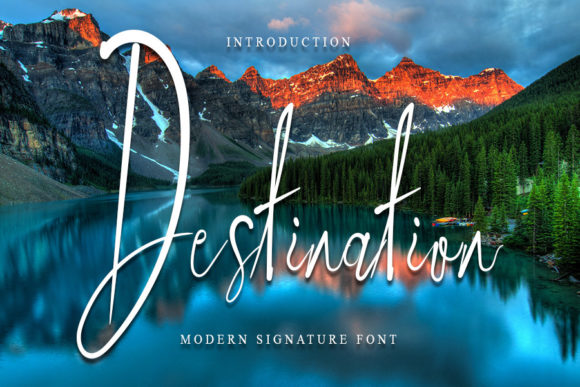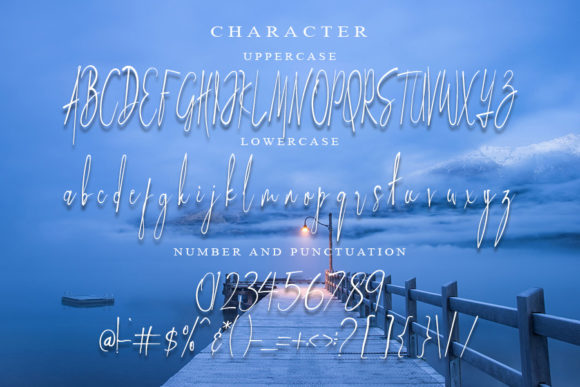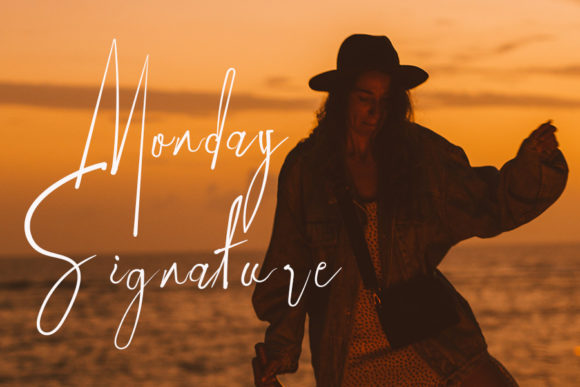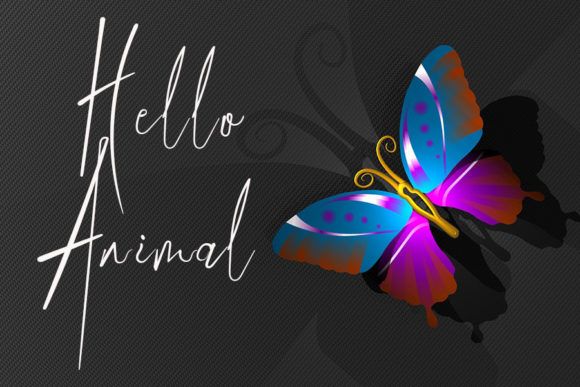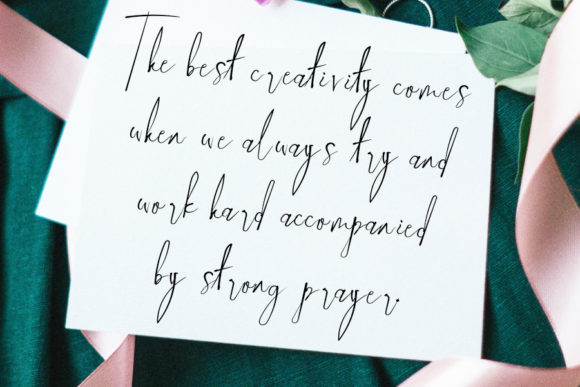
Destination Font
About Destination Font
Destination is a thin lettered and delicate handwritten font. It is the best choice for creating eye catching logos, branding and quotes. Every letter has a unique and beautiful touch, which will make your design come alive!